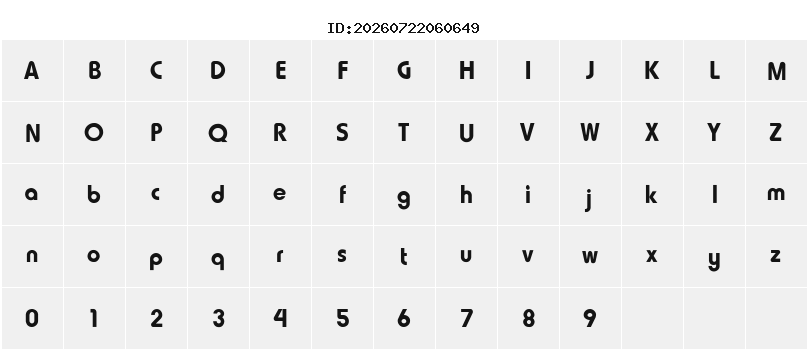
About Howard_Fat-Light.ttf
Howard_Fat-Light.ttf is a modern, elegant sans-serif font designed for ultimate readability and visual harmony. Perfect for branding, headlines, web design, and print materials.